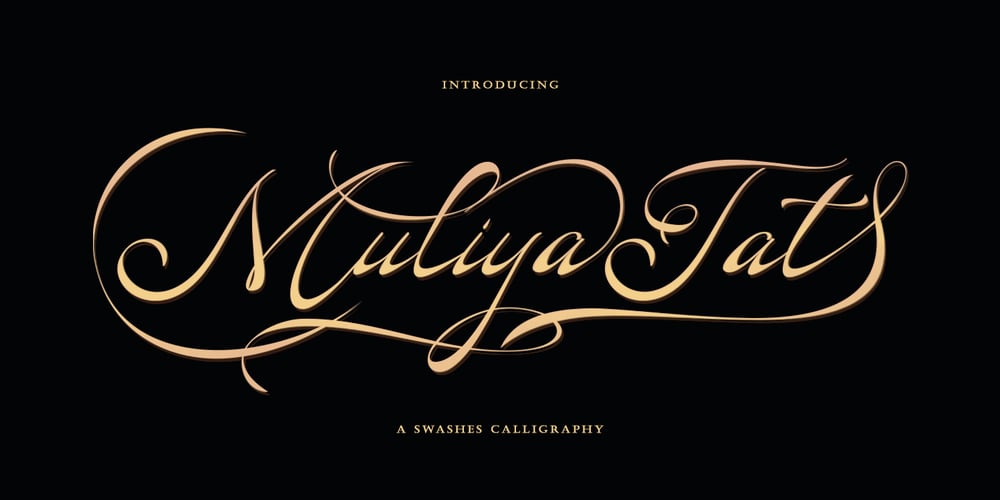
Muliya Tat
Muliya Tat font
Muliya Tat Font Family was designed by Nasrullah and published by Sulthan Studio. Muliya Tat contains 1 styles and family package options. Muliya Tat Is a hand calligraphy, smooth, modern and clasik, calligraphy wavy, which was created to meet the needs of your next design project, hopefully you like it.Muliya tat Calligraphy, Can used for various purposes. such as the title, signature, logo, correspondence, wedding invitations, letterhead, signage, labels, newsletters, posters, badges, etc.Muliya tat Calligraphy features 406 glyphs and has given PUA unicode (specially coded fonts), can be accessed easily with the character map, can be accessed in full by the lovers of letters or artisans to increase career in the design world.